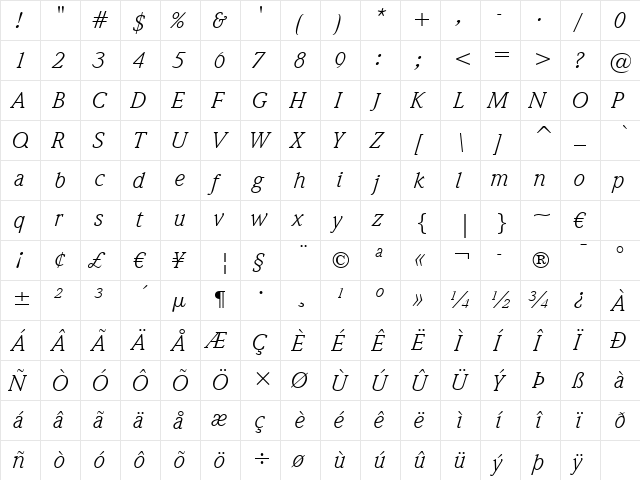
Weidemann Bk BT Book Italic
Design Context for Weidemann Bk BT Typeface
Weidemann Bk BT offers clean, dependable letterforms without strong stylistic allegiance, making it a practical choice for designers who need flexibility. The dynamic lean of this cut emphasises speed and emphasis in any layout.
Pro Tip: Try Weidemann Bk BT for annotation and caption copy alongside an upright companion — the contrast in angle creates a dynamic but ordered typographic system.